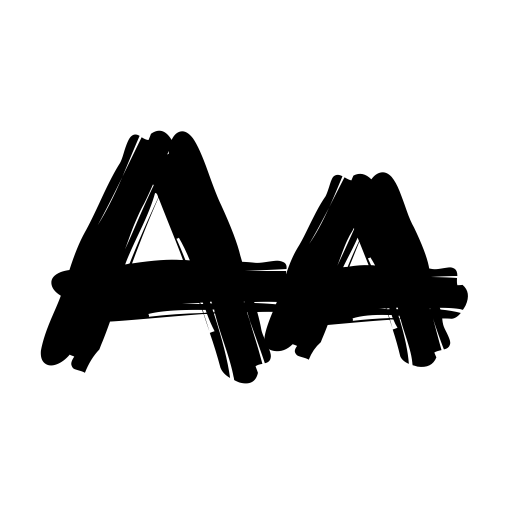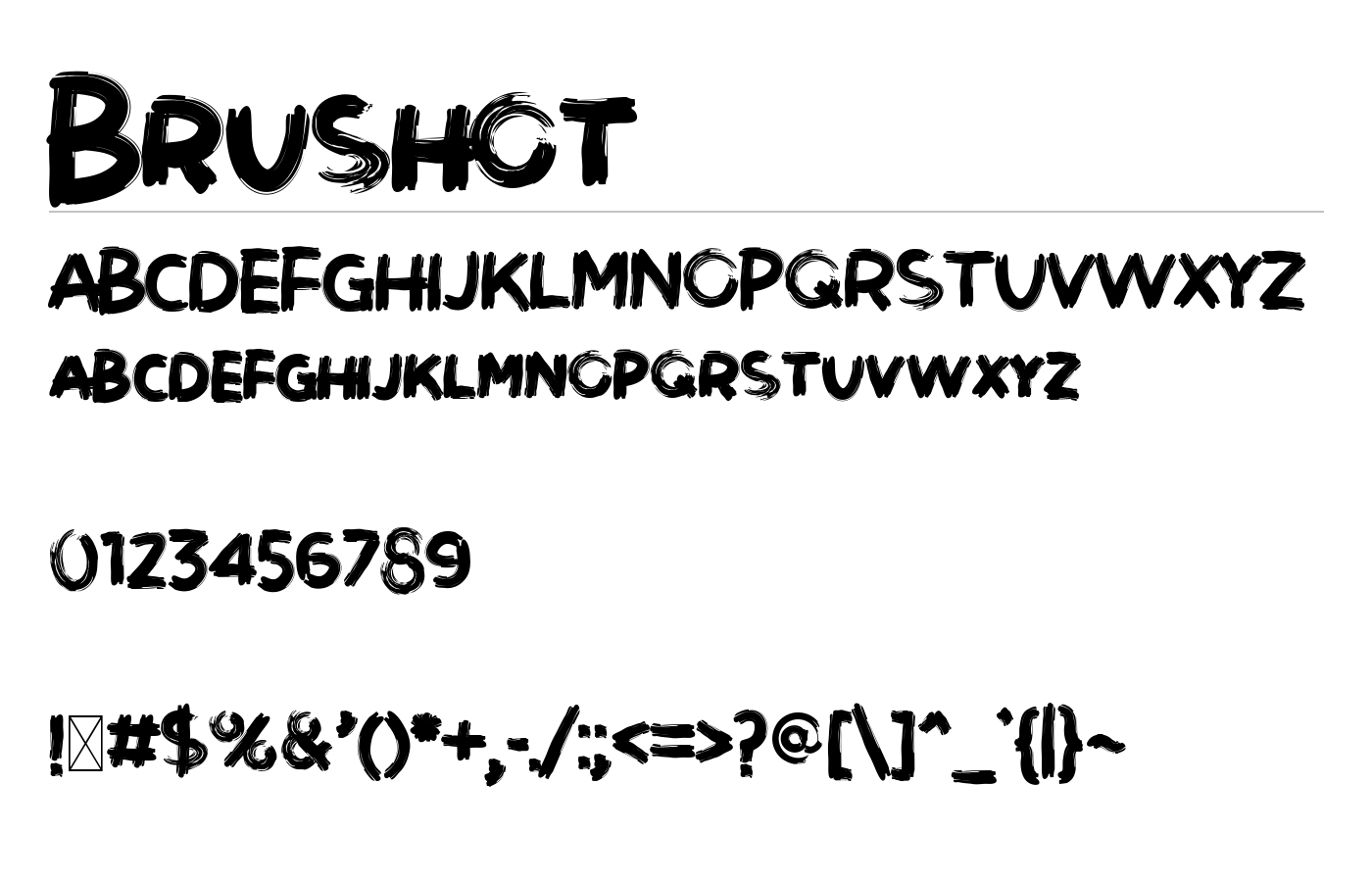
Brushot is a bold, brush-stroke inspired sans serif font that exudes a dynamic, hand-painted feel with its rough, textured edges and irregular stroke widths. Its playful and expressive style makes it ideal for creative headlines, logos, and designs seeking an energetic, artistic vibe that stands out with personality and movement. This font works best where bold impact and casual charm are desired, such as posters, branding, and social media graphics.
Brushot Font
About Brushot Font
| Font family | Brushot Font |
| Designer | Sigit Dwipa |